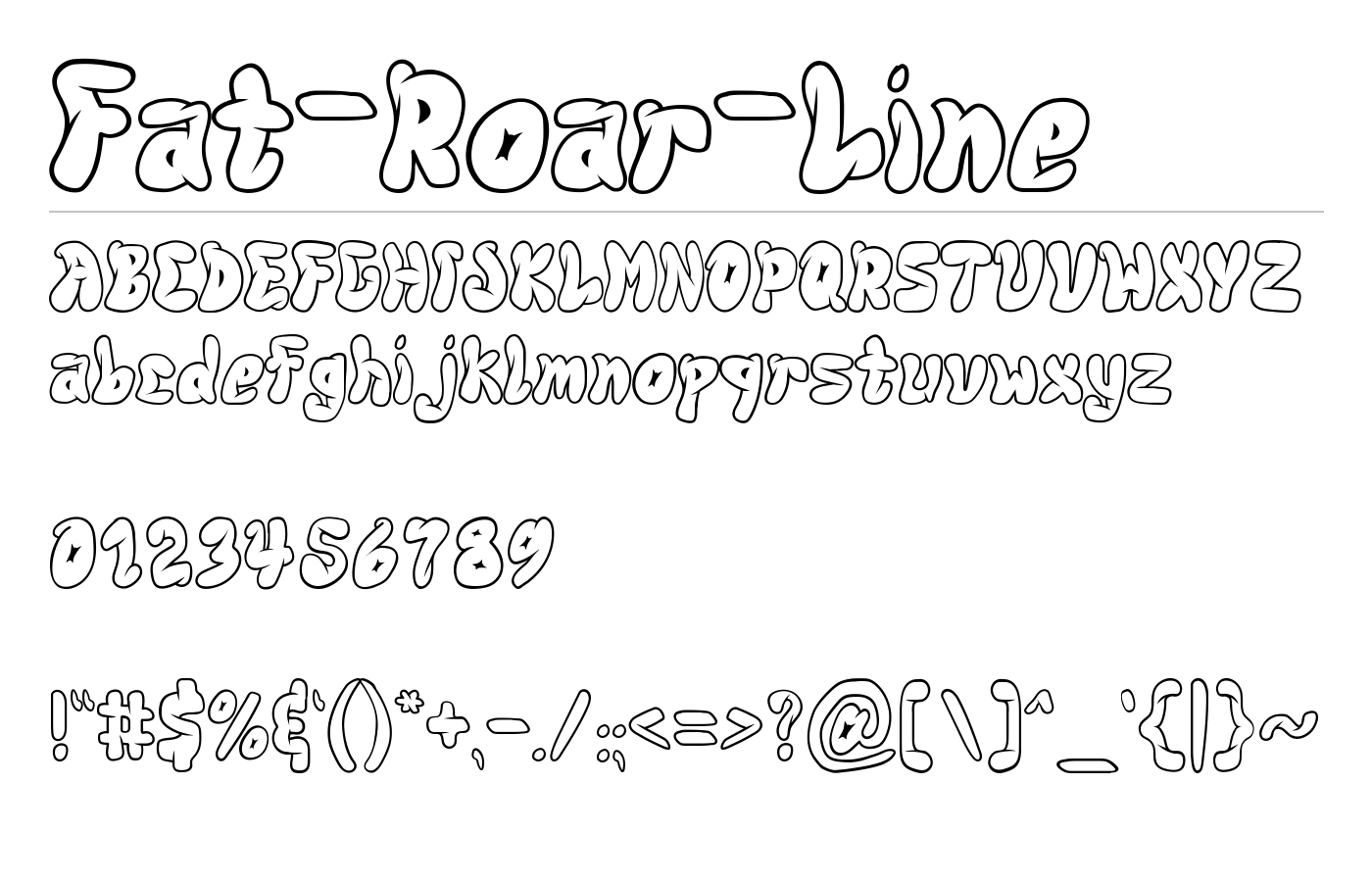
Fat Roar is a playful, bold display font with a hand-drawn, cartoon-like style that features thick, rounded outlines and irregular, whimsical shapes. Its lively and fun character makes it perfect for creative projects, children’s books, posters, and branding that seeks a casual, energetic vibe. This font works best in large sizes for headlines or titles where its unique personality can really stand out.
Fat Roar Font
About Fat Roar Font